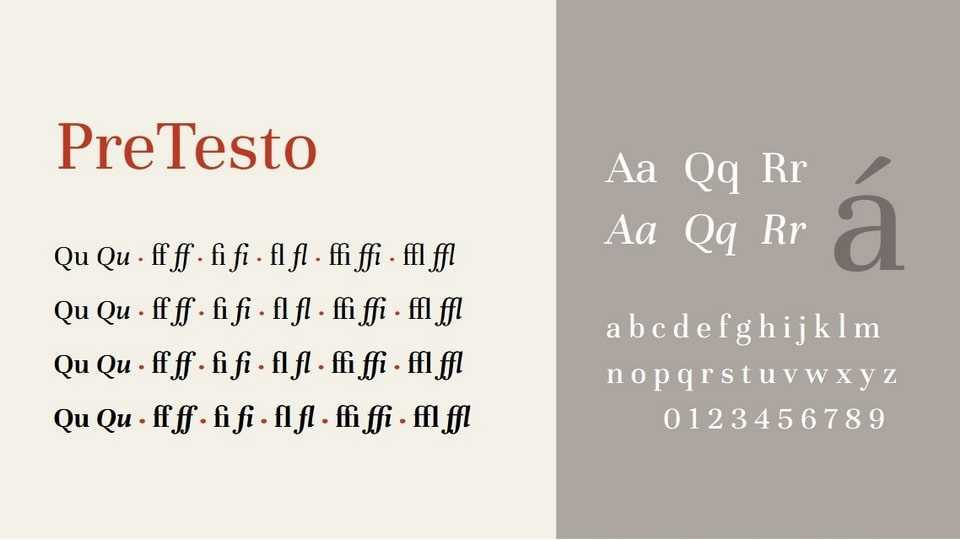
Download PreTesto font, a variable typeface derived from Unna typeface by Omnibus Type (with some modifications). PreTesto is a neoclassical typeface that exudes timeless elegance and modern sophistication, seamlessly blending classic design elements with contemporary sensibilities.